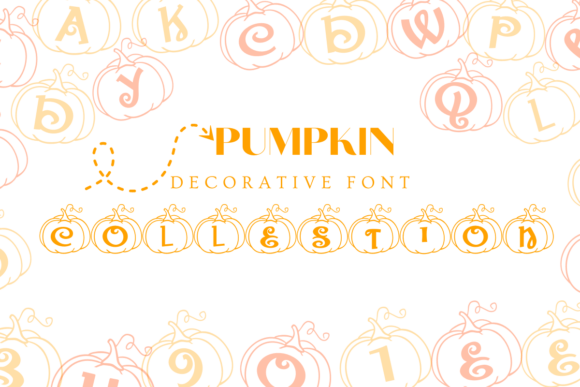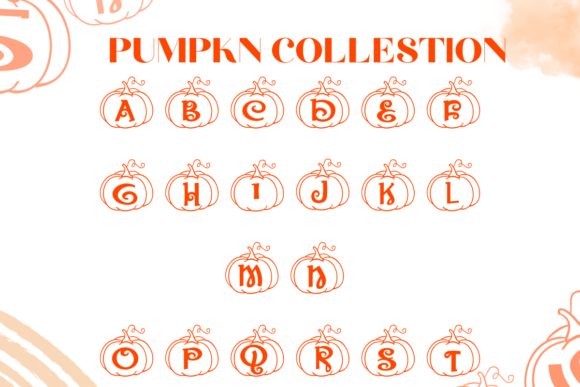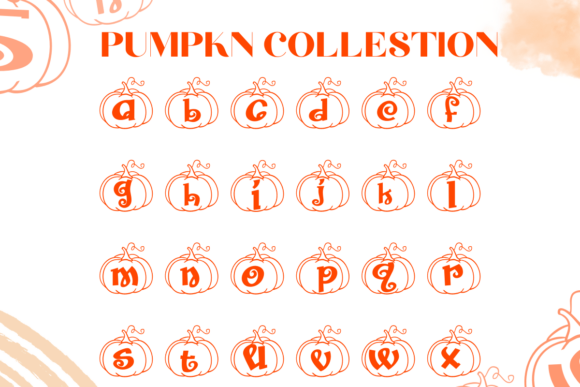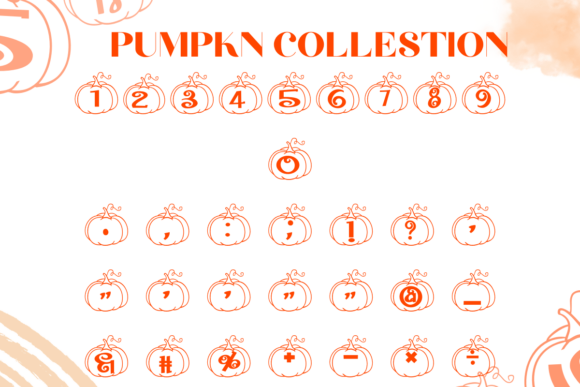
Pumpkin Collestion Font
About the Pumpkin Collestion Font
Experience the unique personality of Pumpkin Collestion Font, a font designed for impact. Pumpkin Collestion is a decorative font with pumpkins You can use it for taking notes, writing a diary, or making greeting cards. However, you can still use it for other designs, such as banners, content, mugs, cards, shirts, stationery, social media posts, and more!
Pumpkin Collestion’s decorative style works best for headlines, short text blocks on posters or greeting cards, and branding elements requiring a playful touch, such as logos for autumnal businesses or children’s products. It’s less suitable for body text or UI elements due to its low readability in extended passages.
The font’s core personality is cheerful and autumnal. It projects a friendly, approachable, and slightly whimsical feel. Therefore, it pairs well with clean sans-serif fonts like Open Sans for body text, providing a contrast that balances its decorative nature. For a more sophisticated look, consider pairing it with a classic serif like Garamond or a slightly more modern serif like Lora.
Avoid using Pumpkin Collestion in contexts demanding high readability, such as websites or long-form documents. Its decorative elements might overshadow the message in such applications.